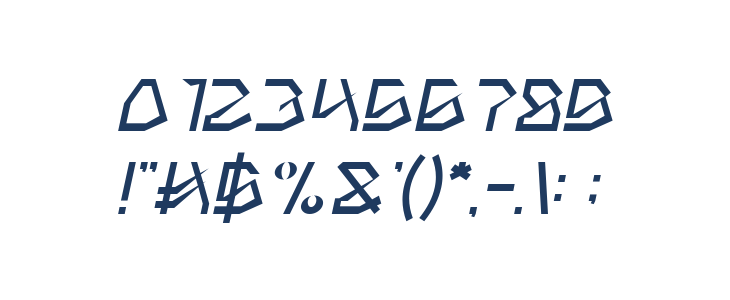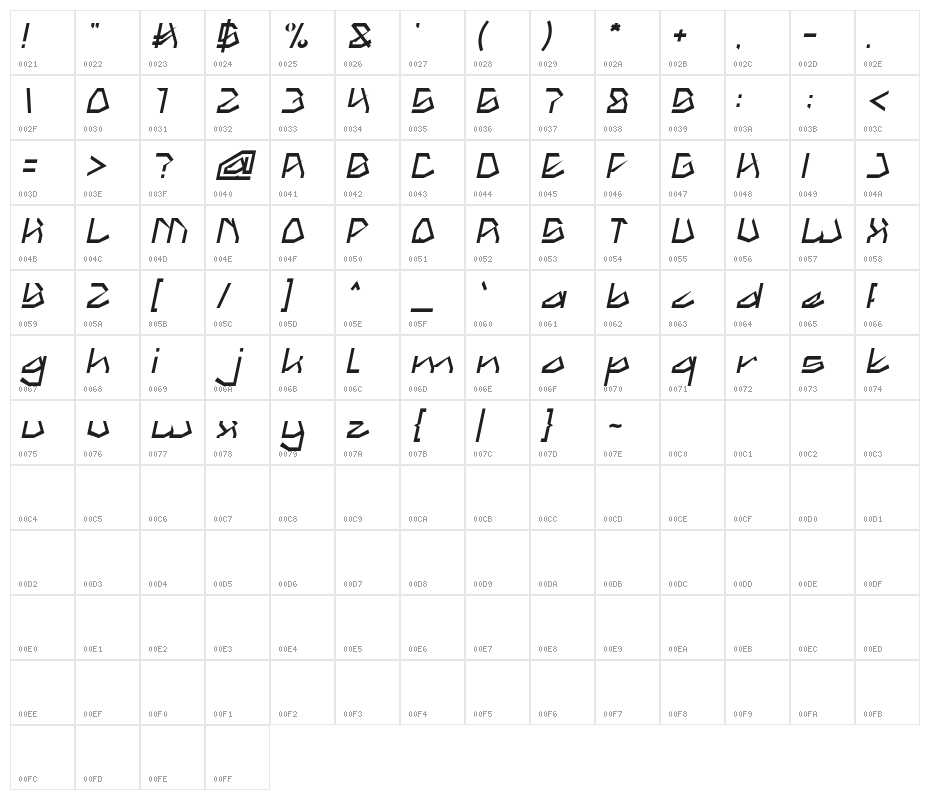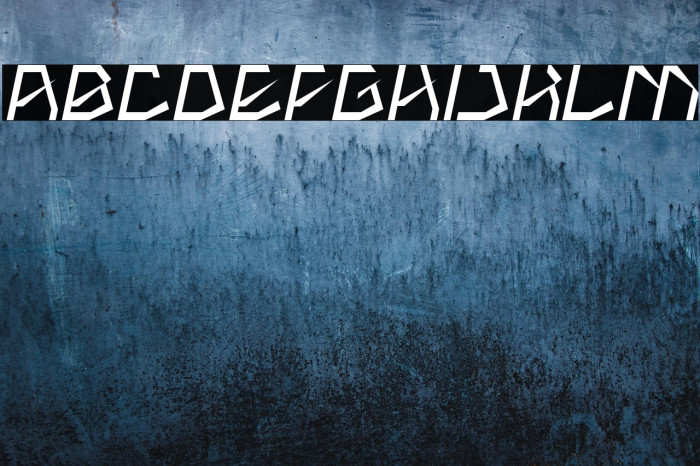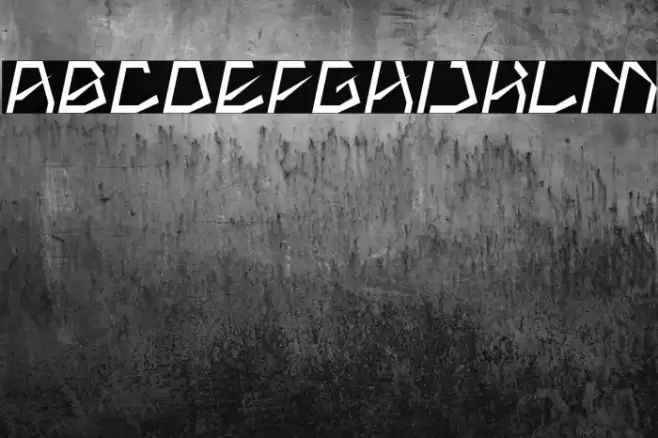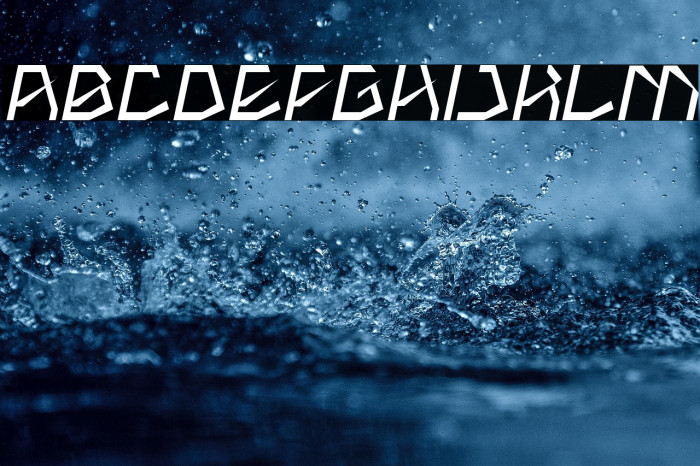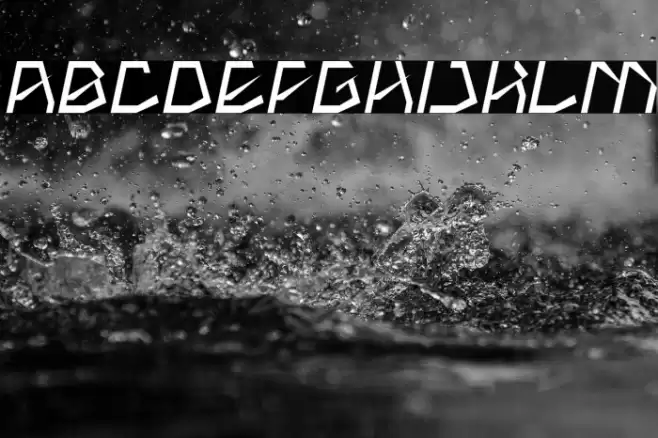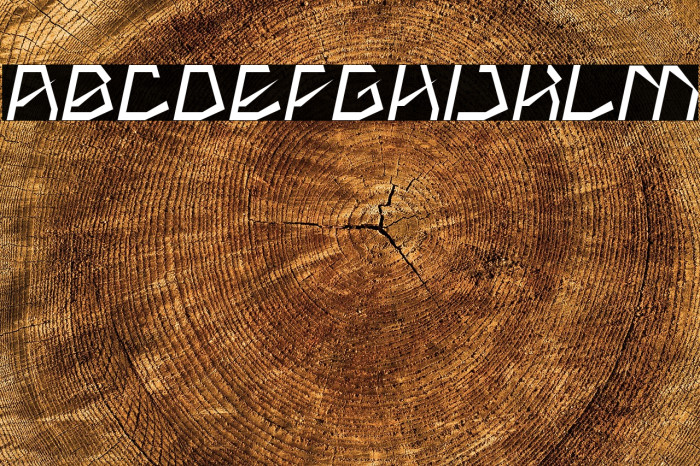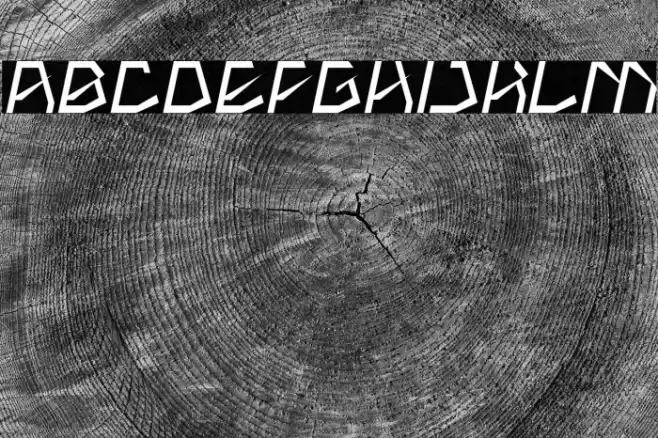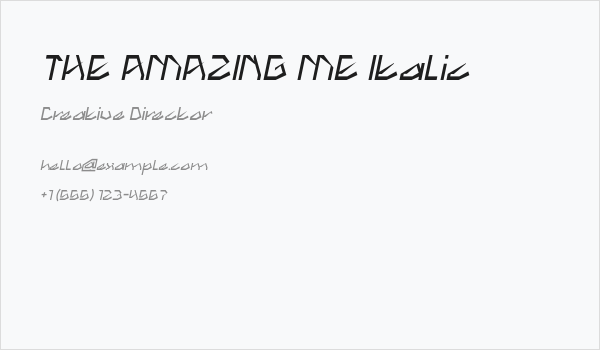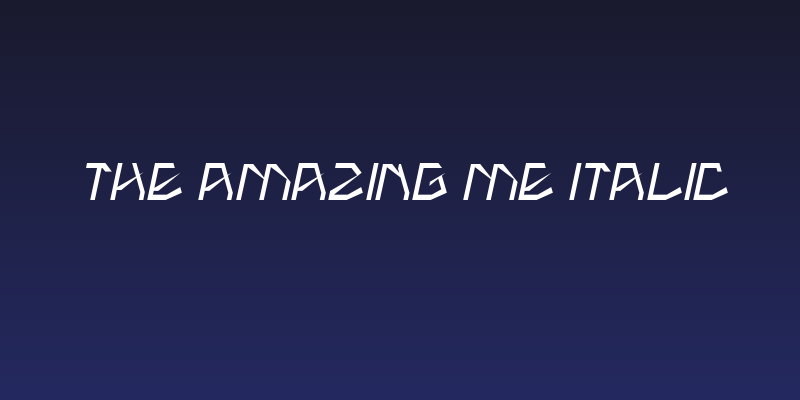
THE AMAZING ME Italic Font
THE AMAZING ME Italic Description
This font features a bold and angular design, characterized by sharp edges and a geometric structure. The letters are slanted, giving it an italicized appearance, which adds a dynamic and energetic feel. The uppercase and lowercase letters maintain a consistent style, with a futuristic and edgy look. Numbers and special characters follow the same angular theme, ensuring uniformity across all glyphs. The font's unique style makes it stand out, suitable for projects that require a modern and unconventional aesthetic.